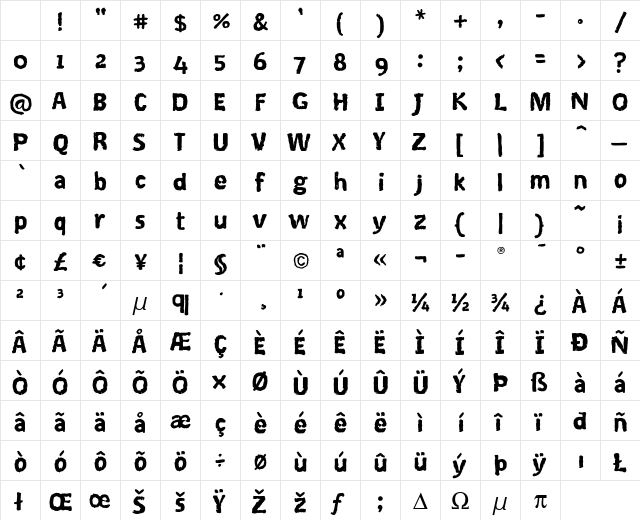
Complete CoventryITC Heavy glyph index. Displaying only characters natively supported by CoventryITC Heavy font.
CoventryITC is a composed and adaptable typeface that performs quietly and consistently across a wide range of design contexts.